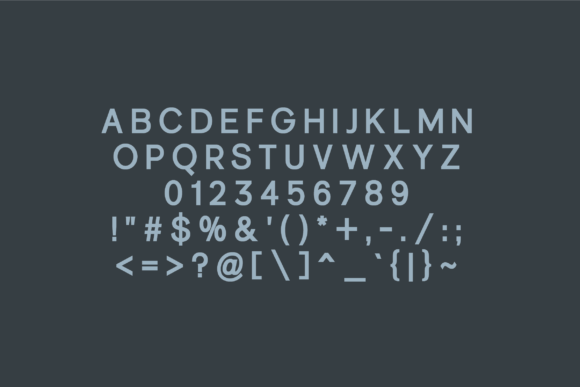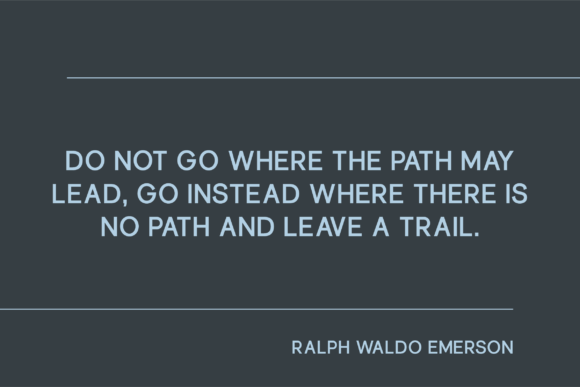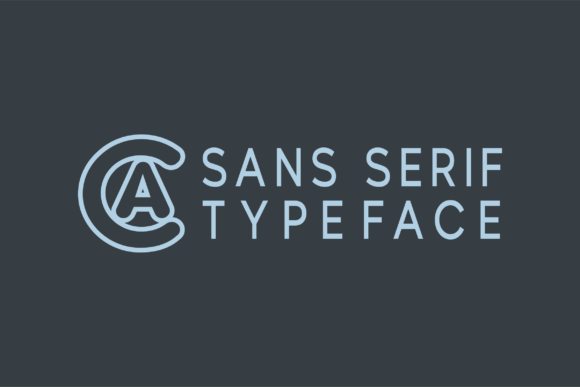
Introduction to Lavendula Font
Introducing Lavendula, a modern, classy sans serif typeface.
A sans serif typeface that contains upper characters, number 0-9 and a range of punctuation and symbols An extremely versatile font, perfect for logos, weddings, invitations, quotes, advertisements, print, magazines, and more.
Key Features of Lavendula Font
Why Choose Lavendula Font?
Lavendula Font offers exceptional quality and versatility, making it a valuable addition to your design toolkit. Whether you’re creating for personal projects or commercial use, Lavendula Font delivers professional results.